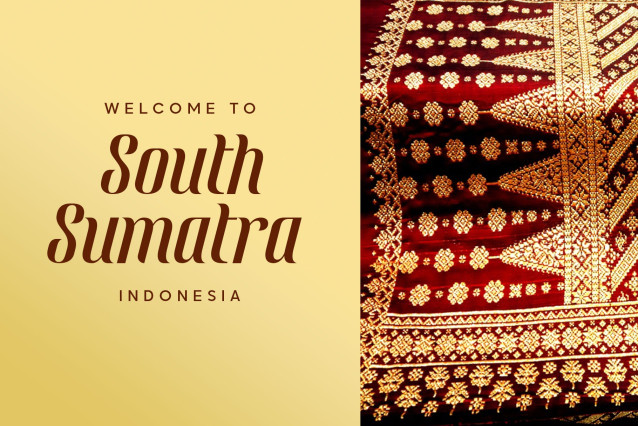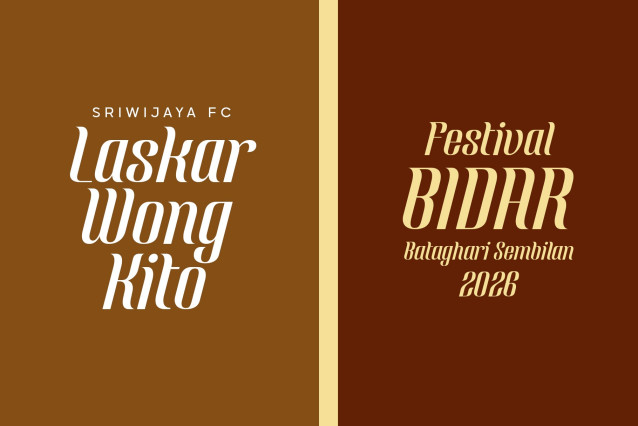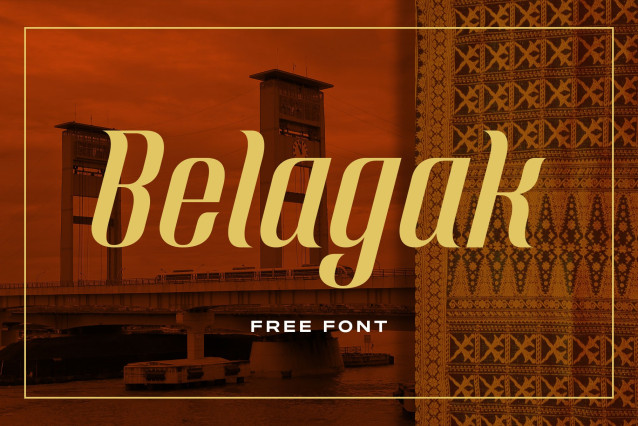
Belagak Font
Belagak Font a modern minimalist typeface infused with a subtle touch of my local roots. Rather than leaning into overt traditional or tribal aesthetics, Belagak translates cultural cues into a clean and contemporary visual language.
Its sharp pointed terminals take inspiration from the Tanggai nail adornments featured in Tari Tanggai, a traditional dance from Palembang, Indonesia. The slanted stance and graceful curves echo the gentle waves of the Musi River, giving the letterforms a sense of motion and fluidity.
Visually, Belagak doesn’t chase tribal aesthetics or heavy cultural ornaments. Instead, it embraces a clean, contemporary direction — making it particularly suitable for display use, branding, editorial headlines, and modern design compositions where a hint of personality goes a long way without overwhelming the layout.